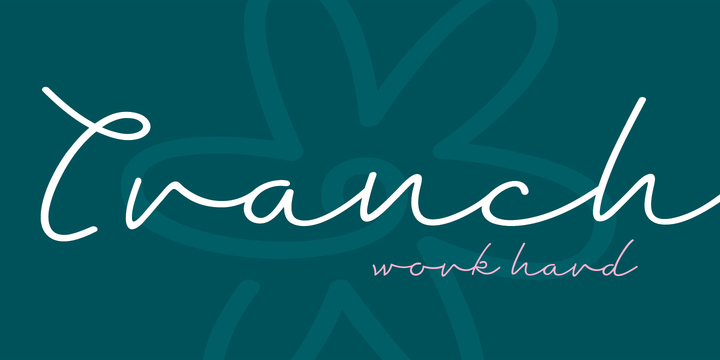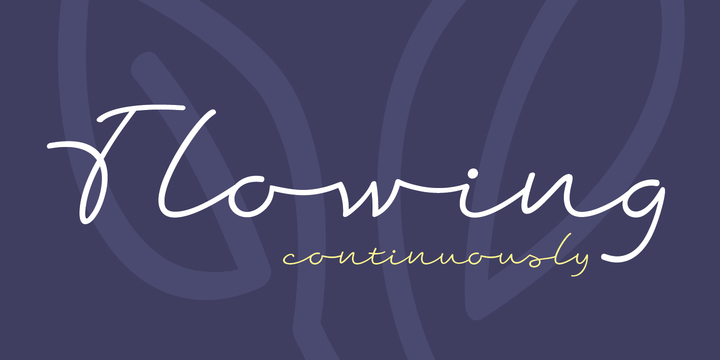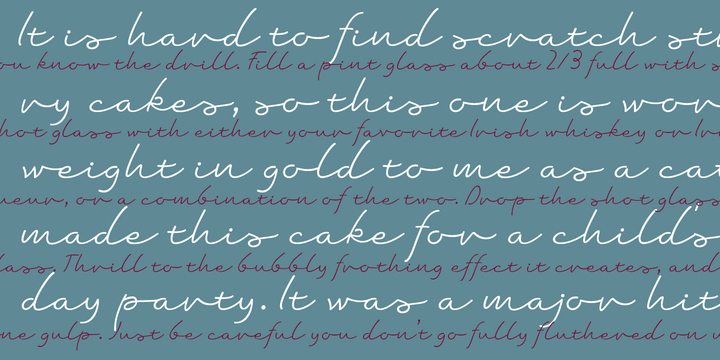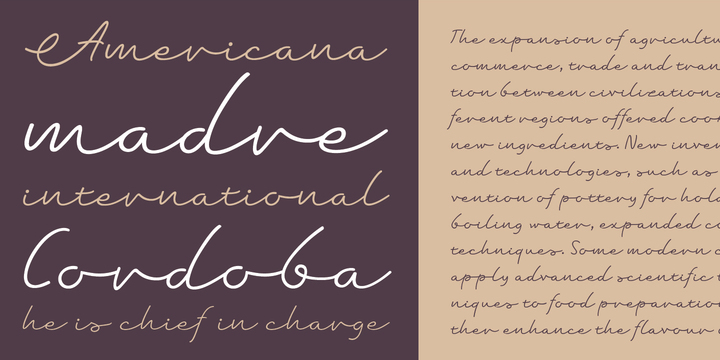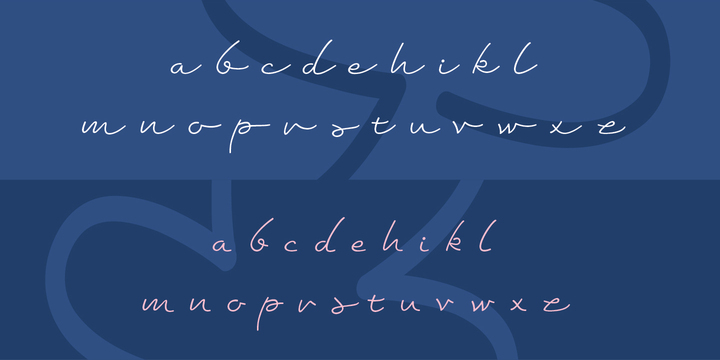
About Dambera Retro Font
Dambera is a made up word I used as planet name in my first comic published in a kids magazine when I was 6 years old.
Dambera font has pretty similar reference – it’s a simple script font I initially designed for wedding invitations and restaurant menus, but it can have wide appliance in every design field, from posters, book covers, outdoor signes to labels and packages.
It contains a set of stylistic ligatures and swash alternates, as well as a small set of floral dingbats. Also contains a set of characters with specific endings (in OpenType terminology, better known under FINA term).